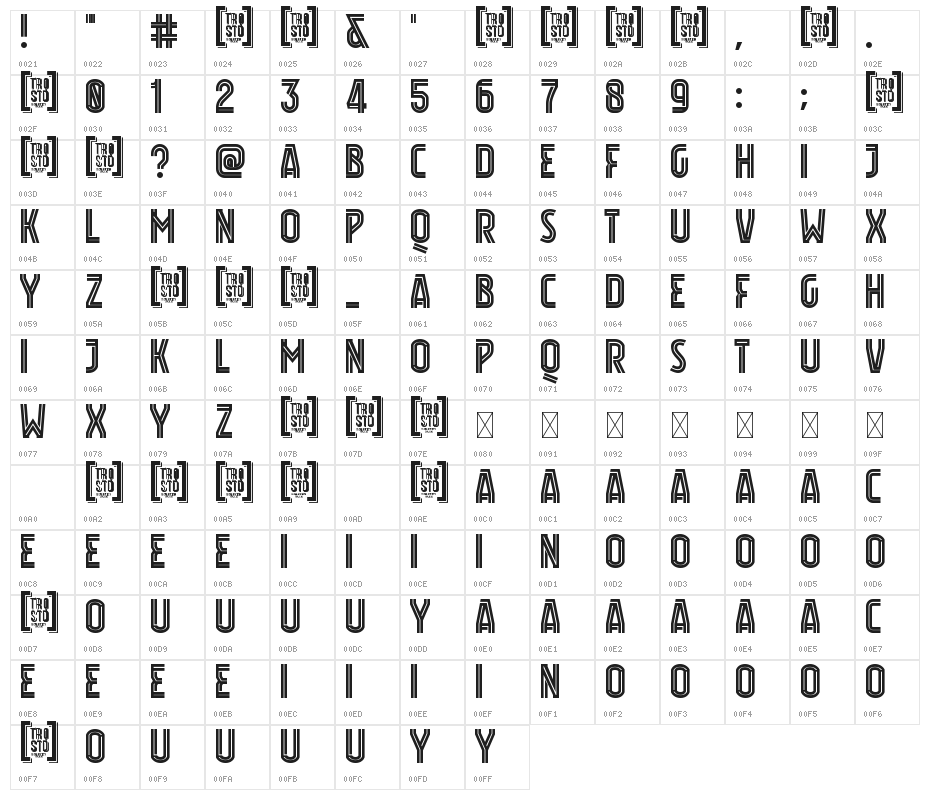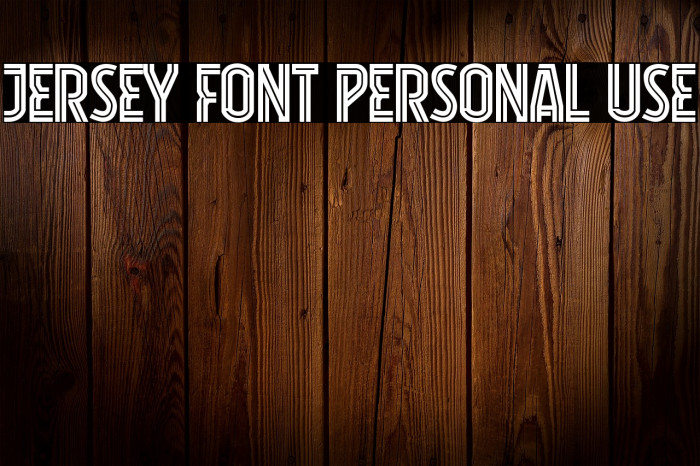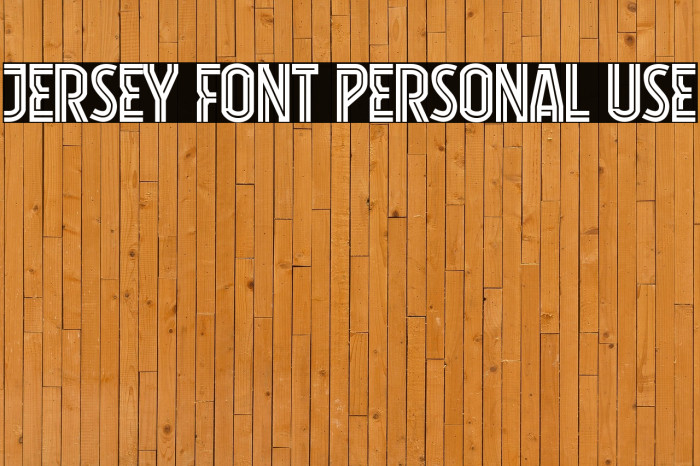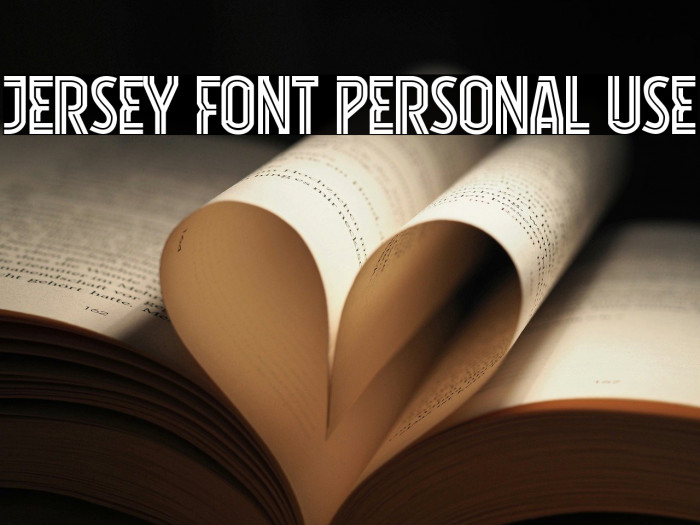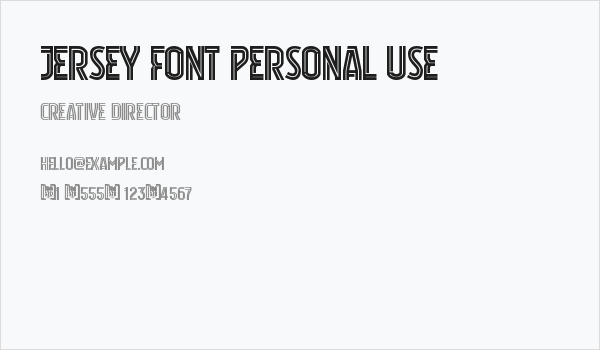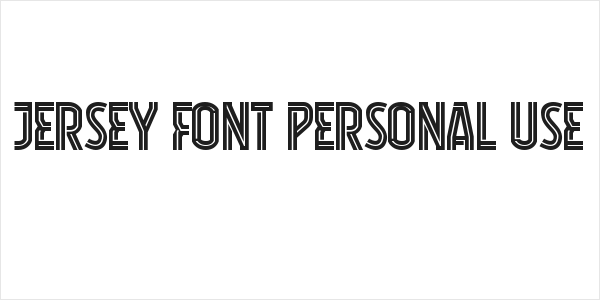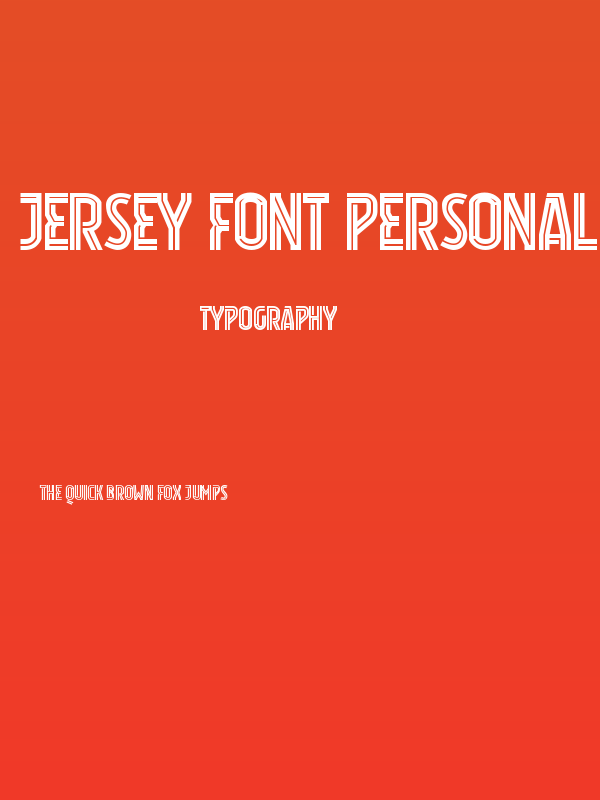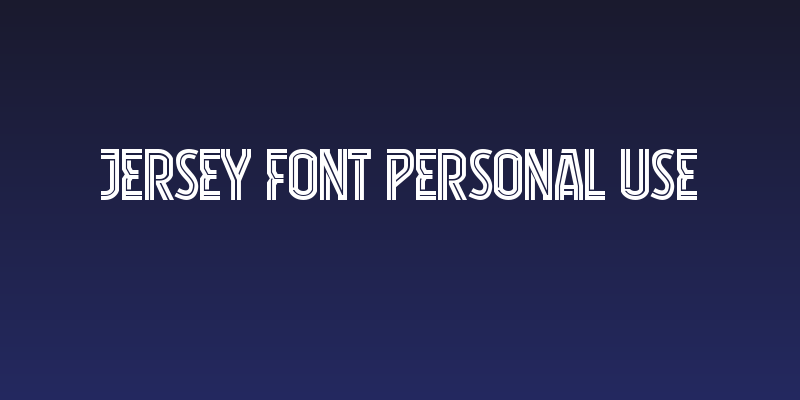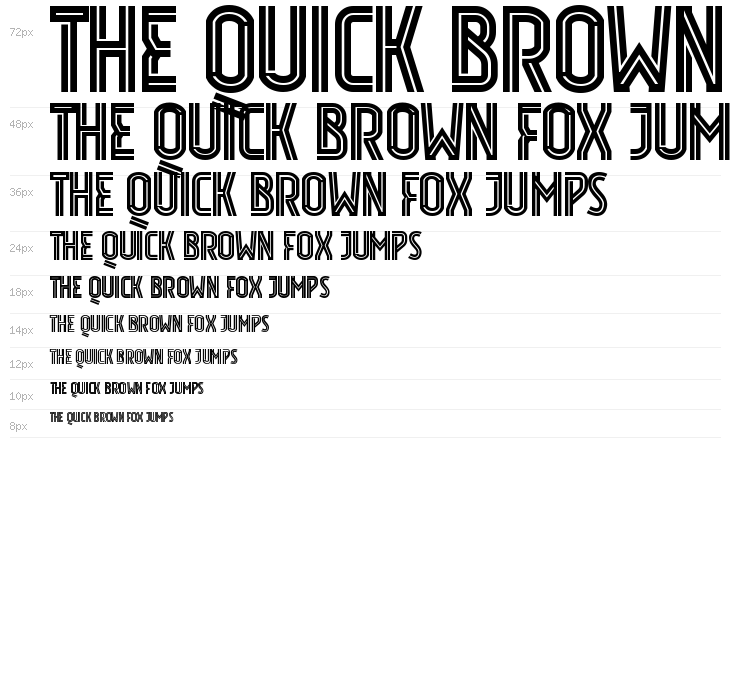
This font features a bold, geometric design with a strong emphasis on vertical and horizontal lines, creating a structured and modern appearance. The characters are outlined with a double line effect, giving them a dimensional look. The font maintains a consistent width across all characters, contributing to its uniformity and readability. The numbers and special characters follow the same design principles, ensuring a cohesive look throughout. This style is reminiscent of sports jerseys, making it ideal for projects that require a bold and impactful typeface.
| Proposed Projects | Sports jerseys, team logos, event posters, and branding materials that require a strong and modern typeface. |